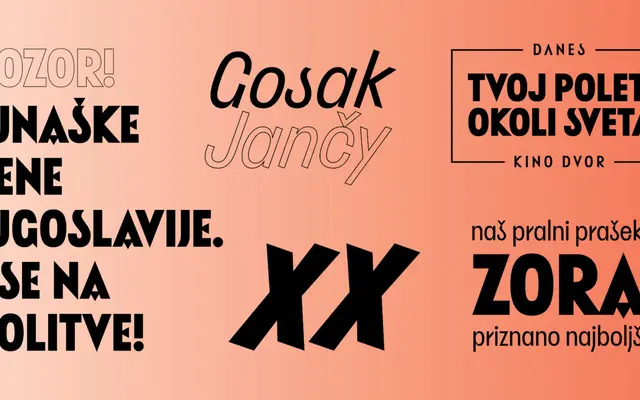
Wesna
A condensed display typeface by Alja Herlah rooted in Slovenian interwar poster lettering, available in three weights with italics across Latin and Cyrillic.
Drawn from the letterings found on Slovenian posters of the interwar period, Wesna brings bold strokes, sharp stroke joints and condensed proportions into a contemporary digital typeface. Three weights from Light to Bold each carry a matching italic, with coverage spanning Latin and Cyrillic scripts. The typeface won the Brumen Biennial award for best in typography in 2024, recognising its work in preserving Slovenian typographic heritage.
Condensed letterforms with bold strokes, sharp stroke joints and distinctive features drawn from Slovenian interwar poster lettering; the strong personality and historical grounding place it firmly in display rather than text use.